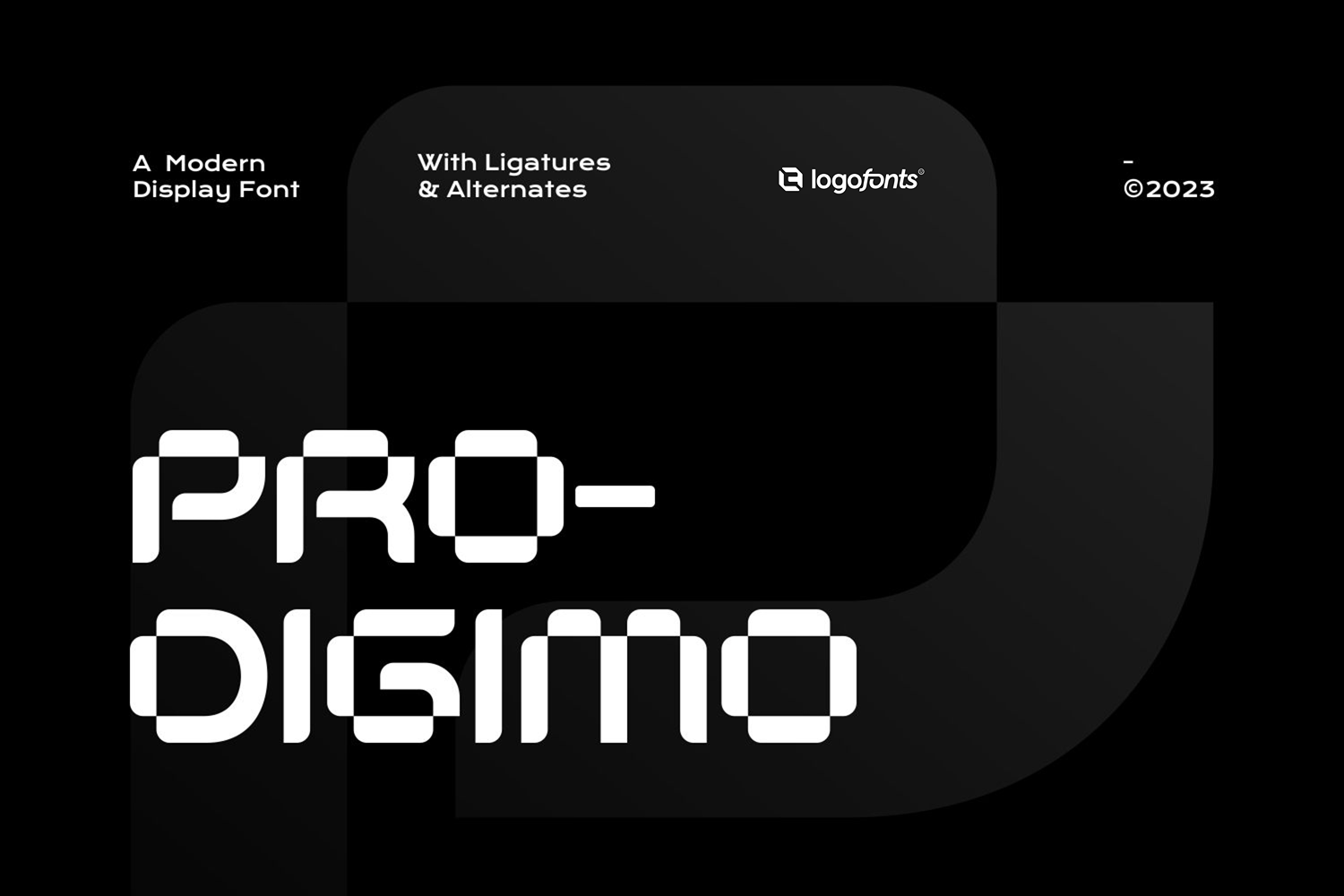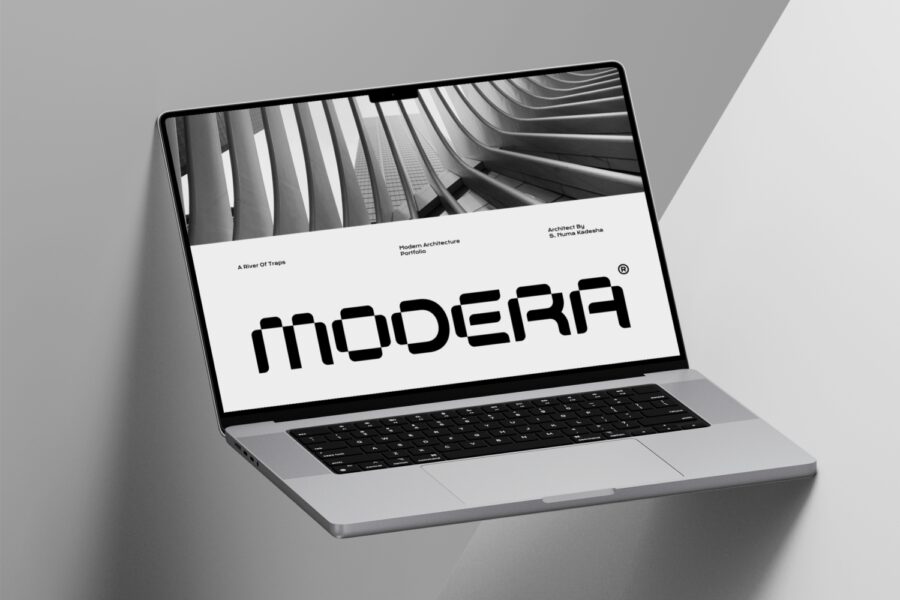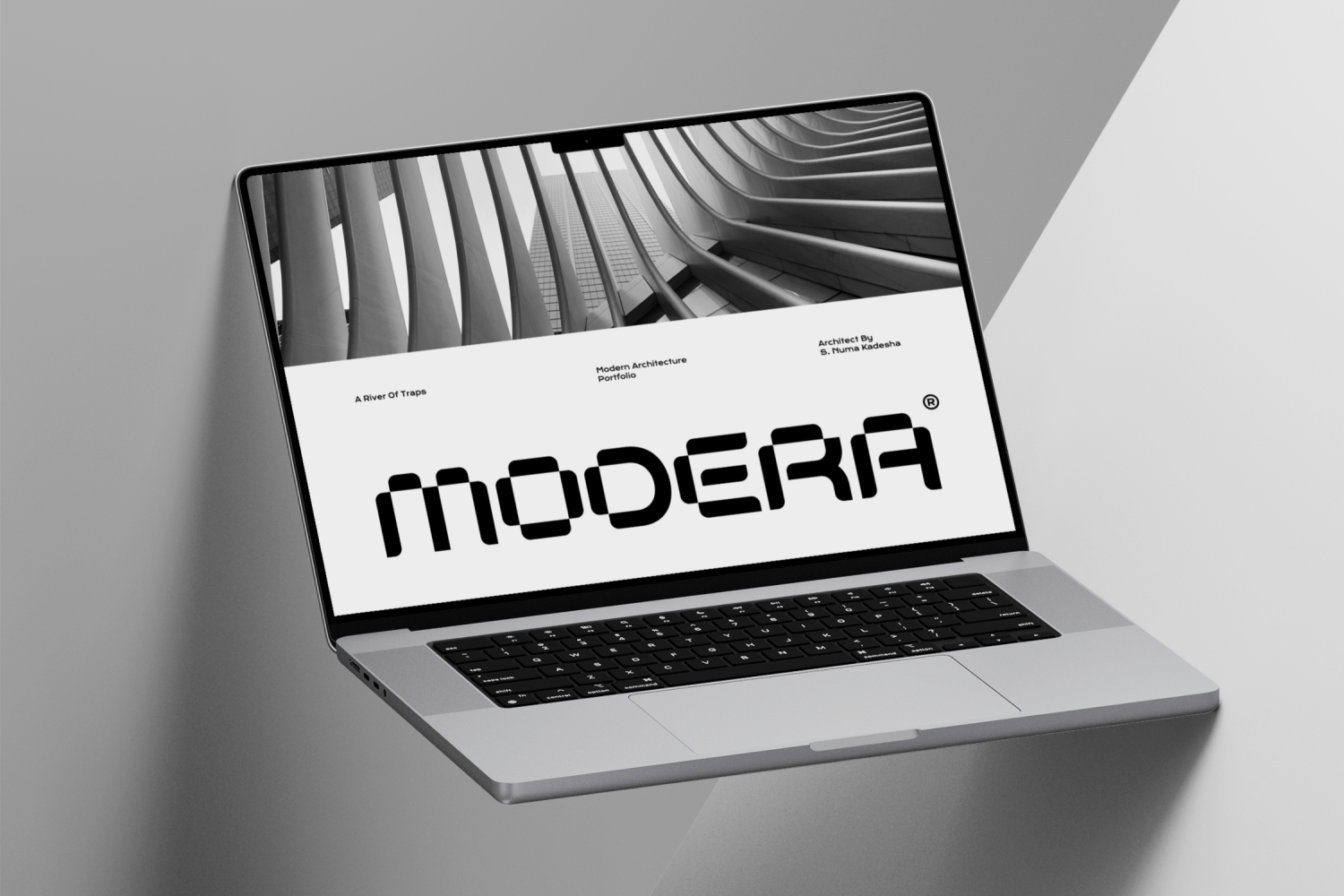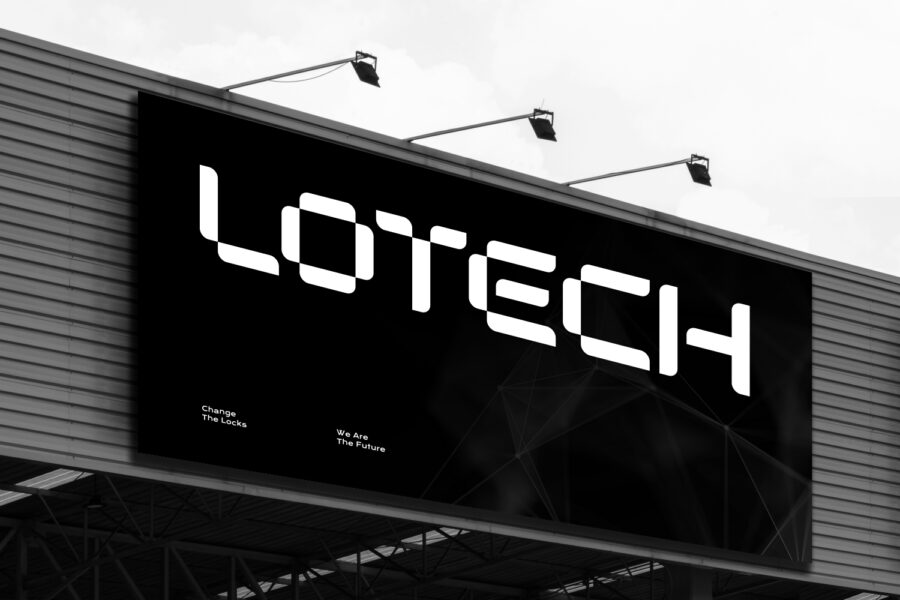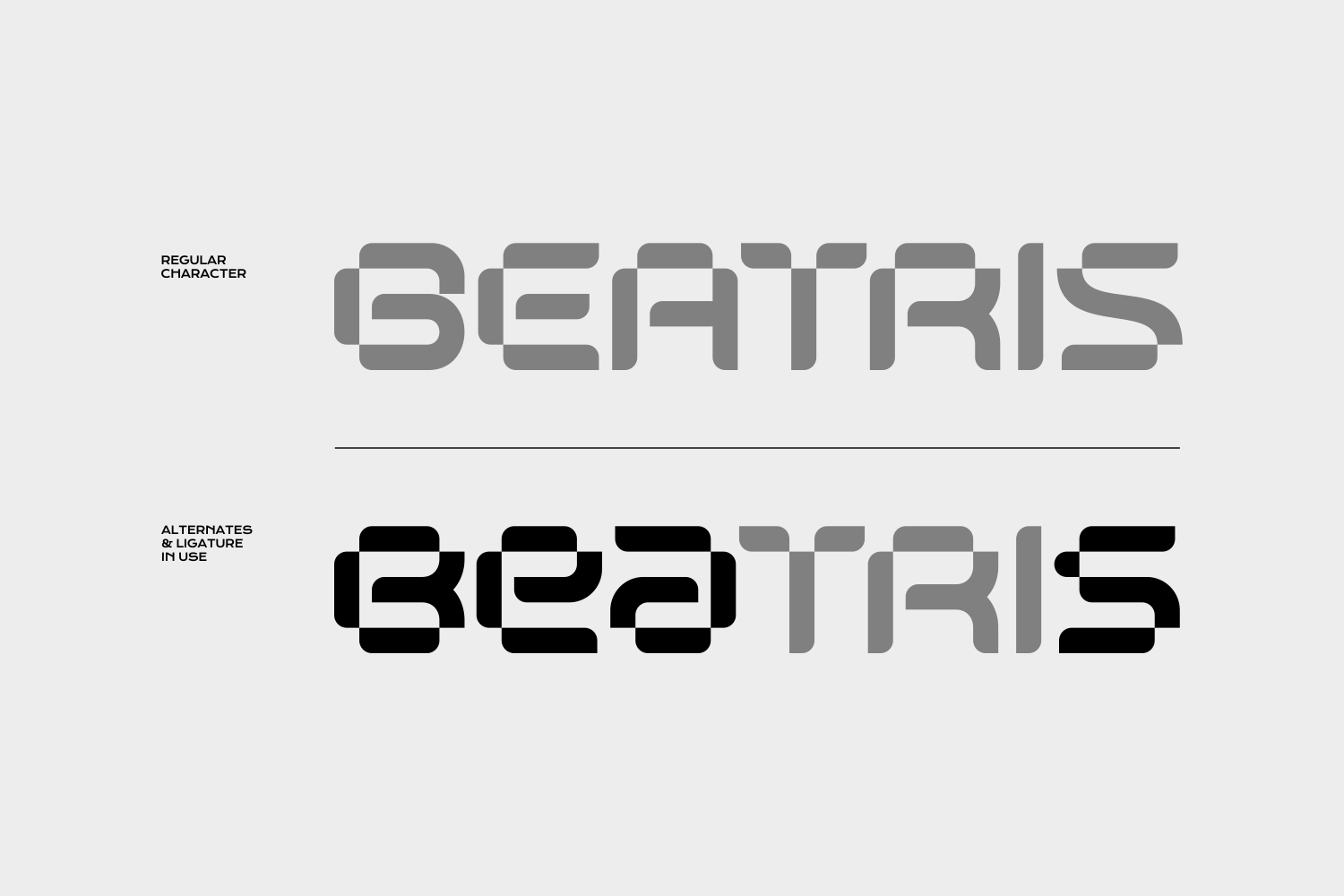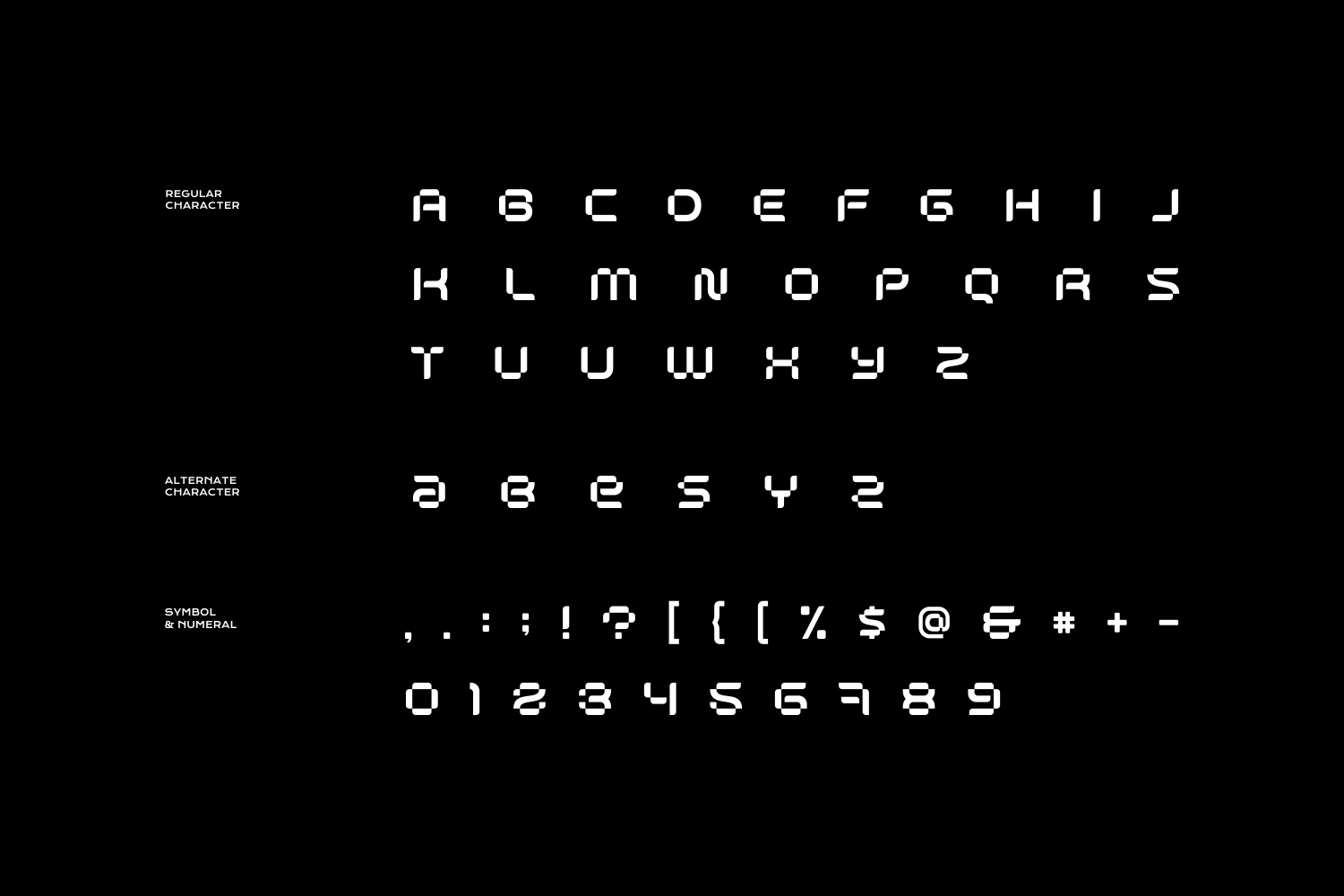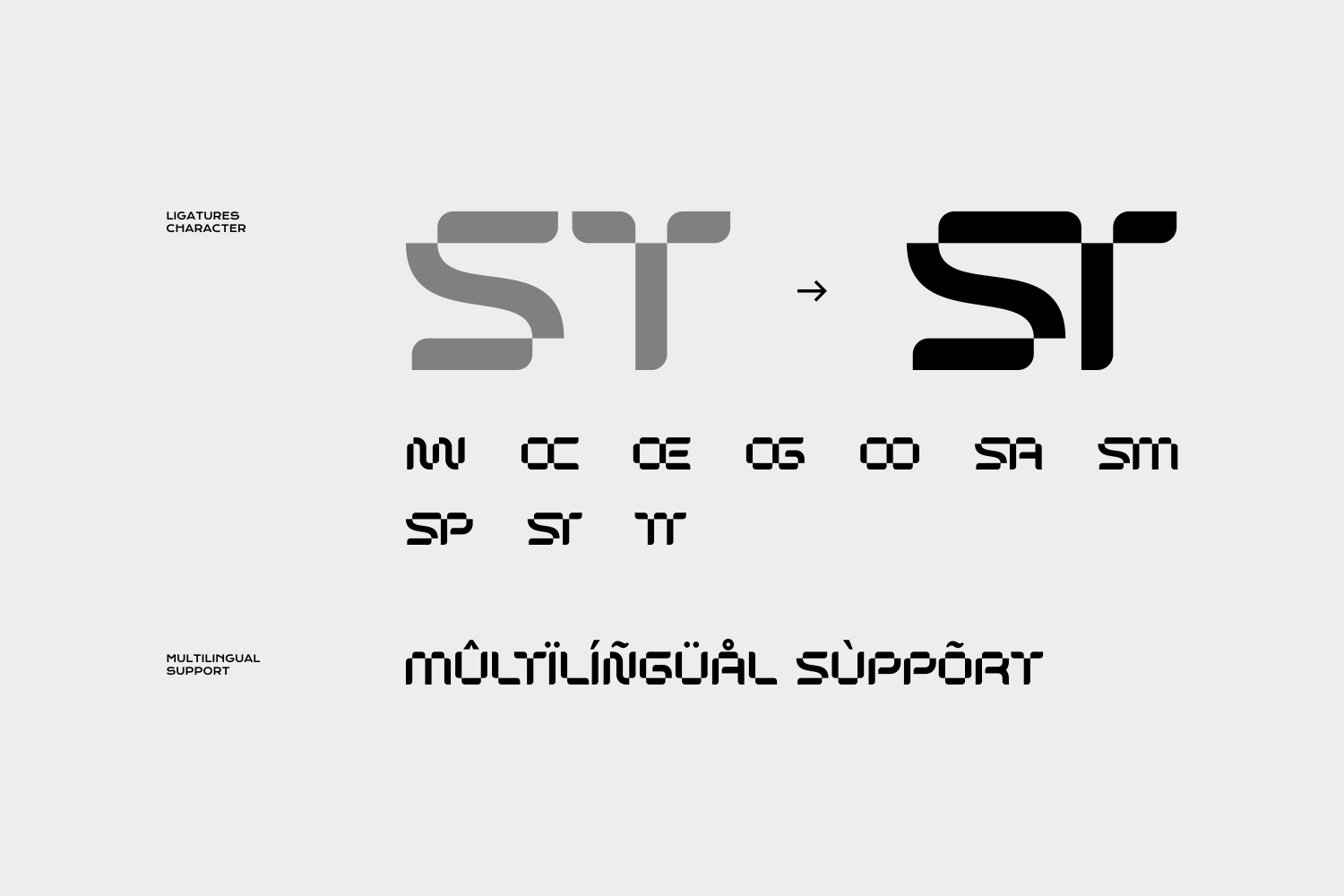
Prodigimo is a futuristic modern display font defined by its modular, blocky structure and rounded terminals. It blends sci-fi aesthetics with a digital tech vibe, making it perfect for use in branding for technology companies, architectural firms, and modern product interfaces. Each letter is carefully constructed using a grid-like concept that results in a visually striking and forward-thinking typographic style.
This font comes packed with alternate characters, creative ligatures, and multilingual support, making it highly adaptable for various branding and display needs. Prodigimo thrives in digital environments, particularly in large-scale visuals such as posters, billboards, or UI mockups where bold and experimental typography is essential.